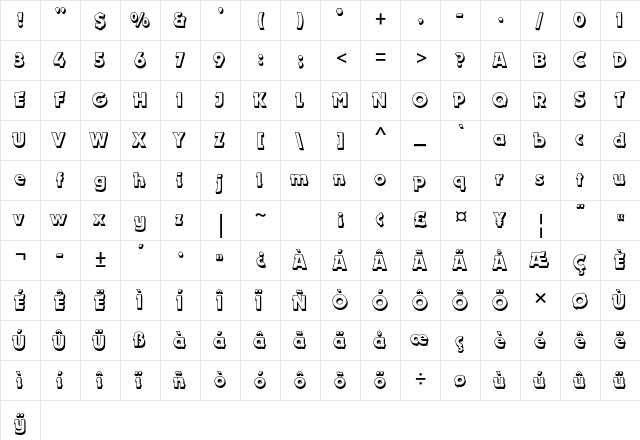
Dynamo Shadow Std Regular
| Designer | Alan Meeks |
Design Context for Dynamo Shadow Std Typeface
Dynamo Shadow Std is built around its visual character rather than neutral utility — its distinctive forms are designed to make an impression at display sizes.
Font Pairing: Pair with a clean neutral sans-serif for body copy to let Dynamo Shadow Std's character lead without overwhelming the composition.
Pro Tip: Use Dynamo Shadow Std exclusively at display sizes — it was designed to be seen, not read at length. Let a neutral companion handle body copy.